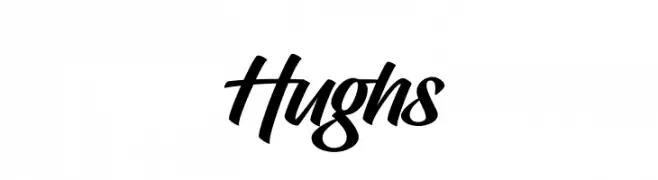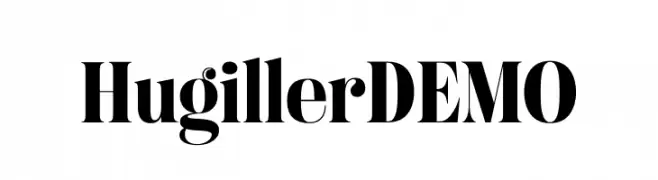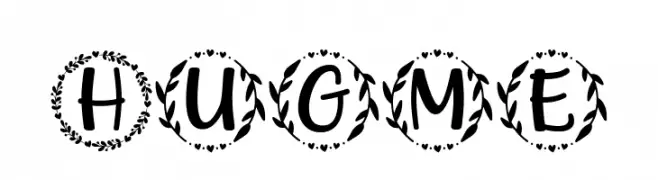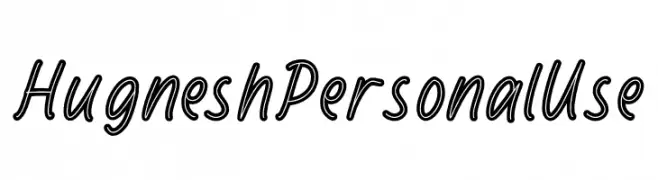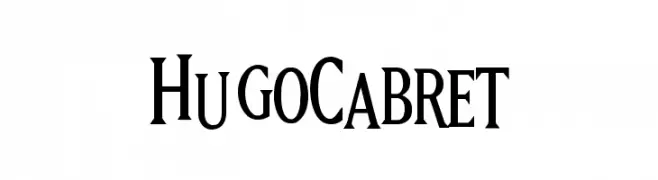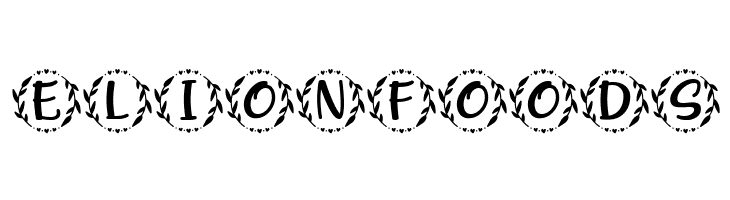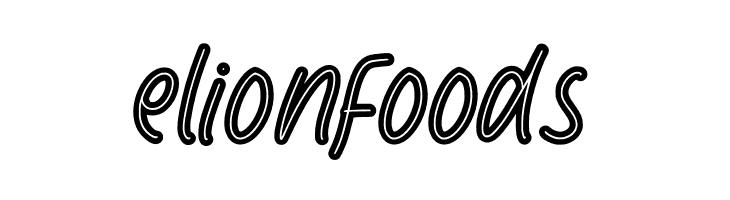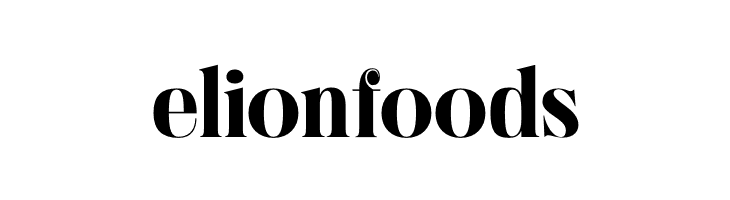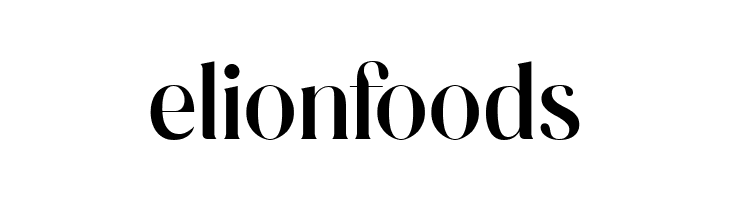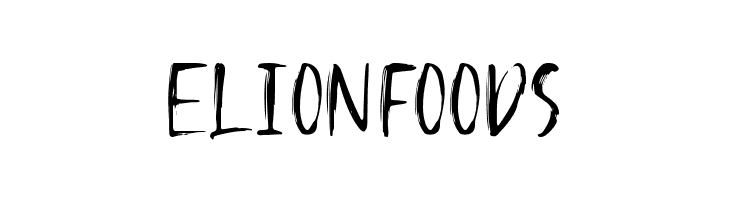
A modern, flowing script font with dynamic and elegant characteristics.
A playful and artistic script font with flowing, cursive letterforms.
A bold, high-contrast serif font with dramatic strokes and elegant serifs.
A decorative font with characters encased in leafy wreaths, offering a whimsical and nature-inspired style.
A playful, bold handwritten font with a dynamic slant and rounded edges.
A classic serif font with elegant, sharp serifs and a vintage feel.
A bold, hand-drawn font with a playful and artistic style.
A high-contrast, elegant serif font with sharp serifs and modern styling.
A bold, dynamic brush-style font with expressive strokes and artistic flair.
A flowing, elegant script font with intricate loops and swashes.